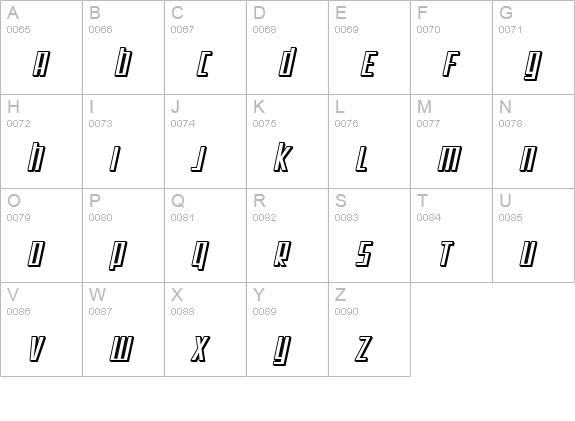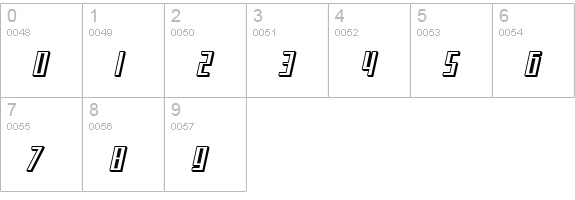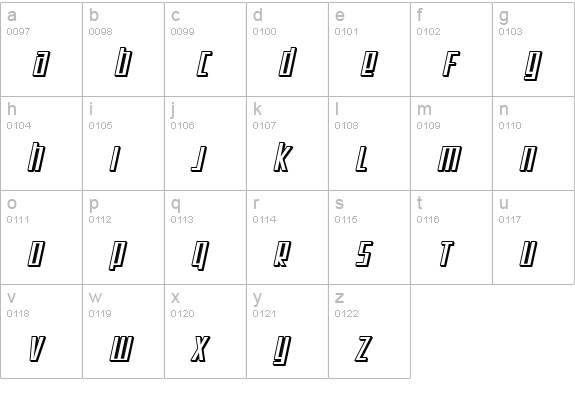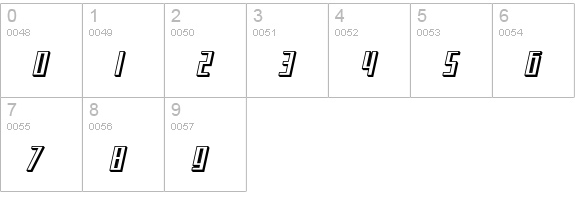
SF Square Root Shaded Oblique Font Details
SF Square Root Shaded Oblique is a distinctive, italic variant in the SF typeface family \xE2\x80\x94 well suited to design and typography projects.
SF Square Root Shaded Oblique font is a stunning and unique typeface that effortlessly combines a modern aesthetic with a touch of artistic flair. With its oblique slant and shaded design, this font exudes a sense of dynamism and sophistication. The SF Square Root Shaded Oblique font is perfect for a wide range of design projects, from sleek and futuristic websites to eye-catching logos and attention-grabbing headlines. Its bold and intricate letterforms draw the viewer's attention, making a lasting impression. One of the standout features of SF Square Root Shaded Oblique font is its versatility. It can be used for both display and body text, making it an excellent choice for designers looking to create visually cohesive projects. The font's legibility remains intact even at smaller sizes, ensuring that your message is always clear and concise. But what sets SF Square Root Shaded Oblique font apart from other typefaces is its accessibility. This font is freely available to download at FontsMarket.com, providing designers with a high-quality and visually striking option at no cost. Now, you can elevate your design projects without having to worry about breaking the bank. So, whether you're a professional designer looking to add a touch of elegance to your next project or a hobbyist seeking to experiment with a unique and captivating font, SF Square Root Shaded Oblique is the perfect choice. Its seamless blend of modernity and artistic charm will undoubtedly leave a lasting impression on your audience. Download it for free today at FontsMarket.com and unlock a world of design possibilities.